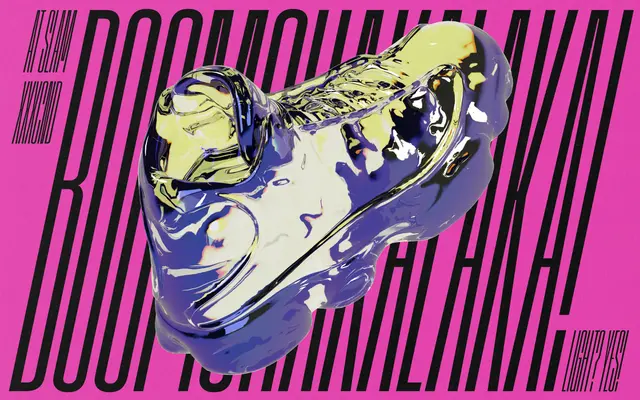
At Slam XXXCnd
An exxxtra-condensed display sans by Pedro Arilla, designed around basketball culture and street-court attitude, with 30 styles including slanted and backslant cuts.
The tightest member of the At Slam Collection, XXXCnd runs 10 weights from Air to Super, each accompanied by a slanted and a backslant variant for a total of 30 styles. A variable font with Weight and Slant axes is included with the full family purchase, and OpenType features cover old-school alternates, circled numerals and tabular figures suited to scoreboard-style data. Latin Extended coverage spans over 100 languages.
An exxxtra-condensed display sans-serif with strong personality, designed for sport and street culture contexts. Its extreme width compression and expressive weight range place it firmly in the display category.